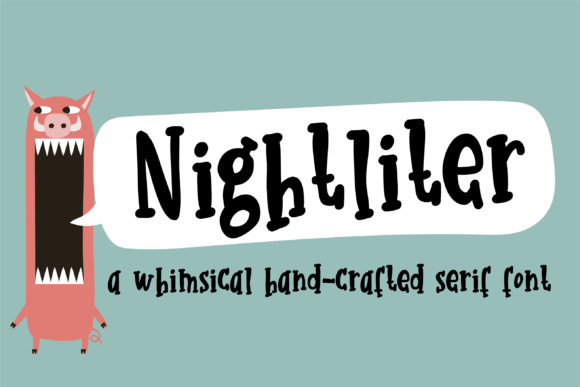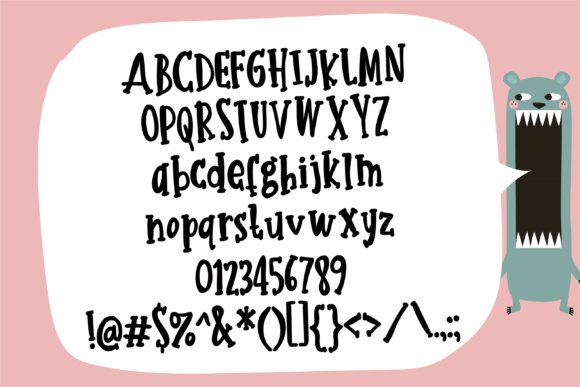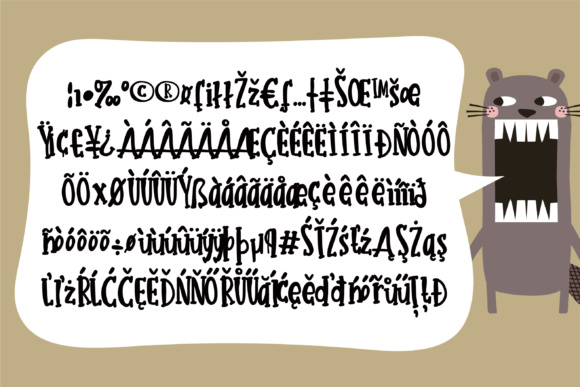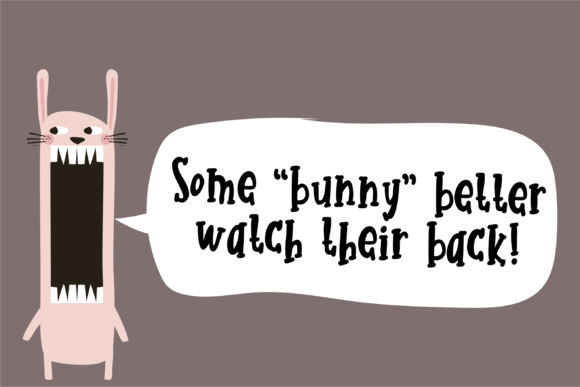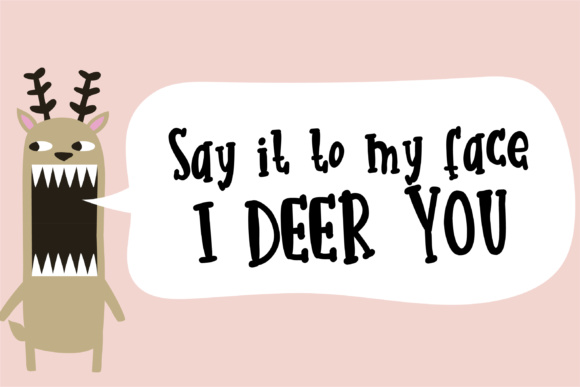
HomeScript FontsNightliter Font Script Fonts Nightliter Font FacebookXPinterestWhatsApp Nightliter Font Poster 2 Nightliter Font Poster 3 Nightliter Font Poster 4 Nightliter Font Poster 5 About Nightliter Font This whimsical hand-crafted font is sporting serifs and a bit of bounce in the baseline. DOWNLOAD ON CREATIVE FABRICAThis font is sold and delivered by Creative Fabrica. Font Canyon may earn a commission if you buy through this link. People also explored Jarewman Font Eszty Font Valentine Font Agil Script Font Rafensik Font Winter Bubbly Font ChalkRound Font Kamandaka Font Fubrica Font 304 0 TagsNightliter Font Previous articleZweetie Curliecue FontNext articlePeppermint Font LEAVE A REPLY Cancel reply Comment: Please enter your comment! Name:* Please enter your name here Email:* You have entered an incorrect email address! Please enter your email address here Website: Save my name, email, and website in this browser for the next time I comment. Personal Use Free Alligator Font Personal Use Free Read more about this font Borg Personal Use Free Read more about this font Homelands Personal Use Free Read more about this font Twisty Girlz Personal Use Free Read more about this font BLOG Using Fonts in Digital Marketing: Tips to Strengthen Your Brand Identity In the realm of digital marketing, every visual element plays a crucial role in shaping a brand's identity, and fonts are no exception. The... Best Fonts for YouTube Videos: Make Your Thumbnails Stand Out The 10 Best Handwriting Fonts to Add Personality to Your Designs Fonts That Capture the Spirit of New York City